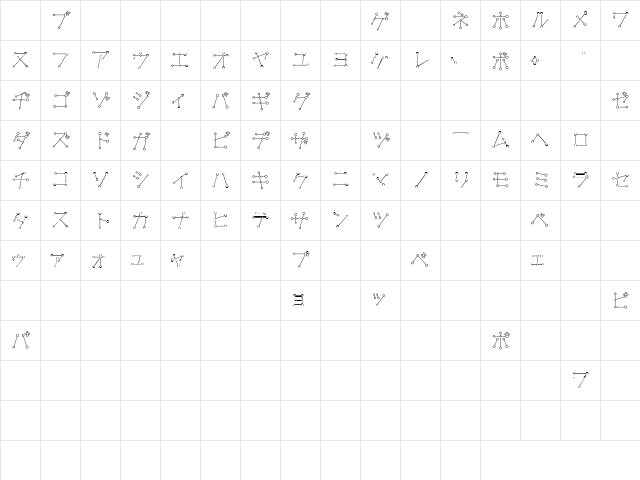
TansanKat Regular
Design Context for TansanKat
TansanKat is a composed and adaptable typeface that performs quietly and consistently across a wide range of design contexts.